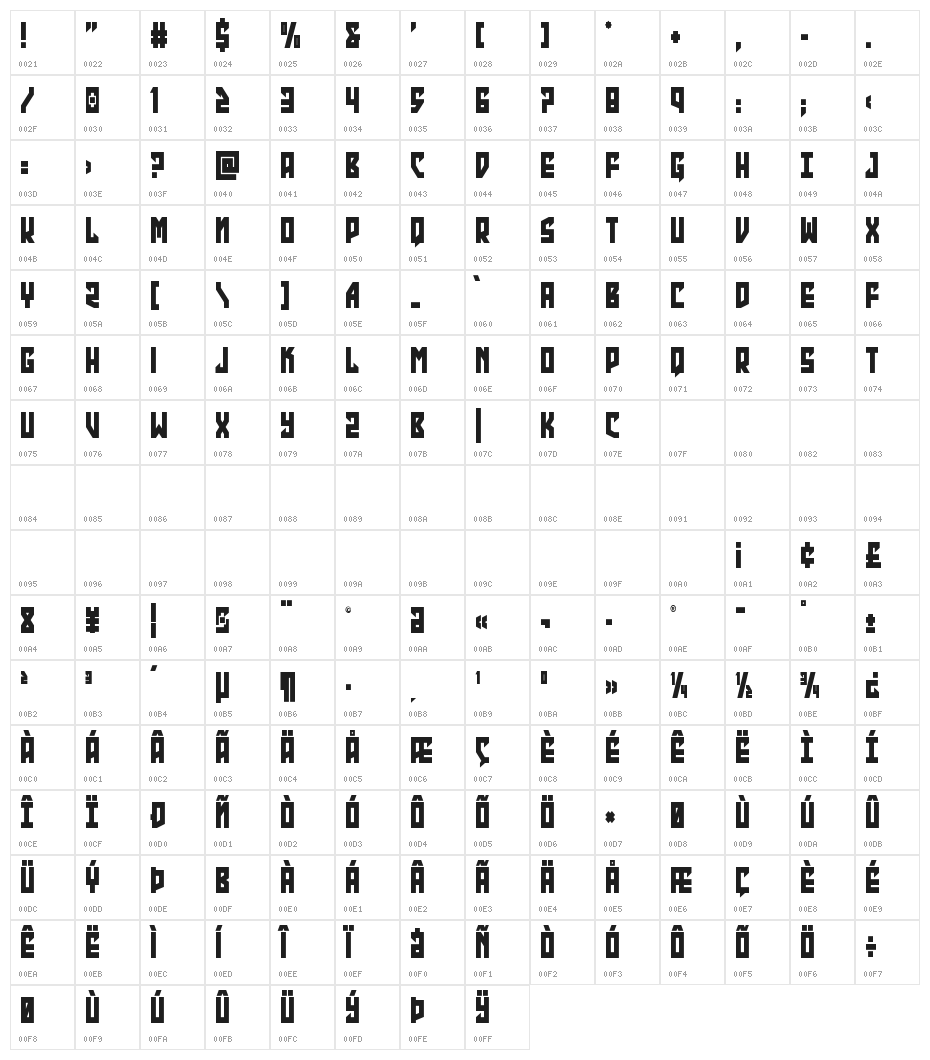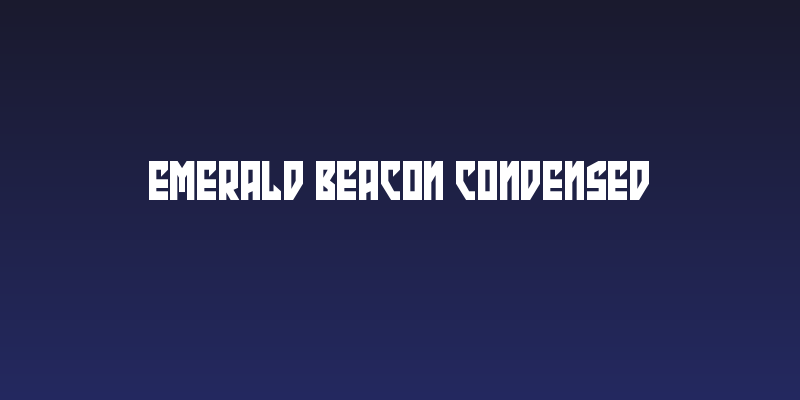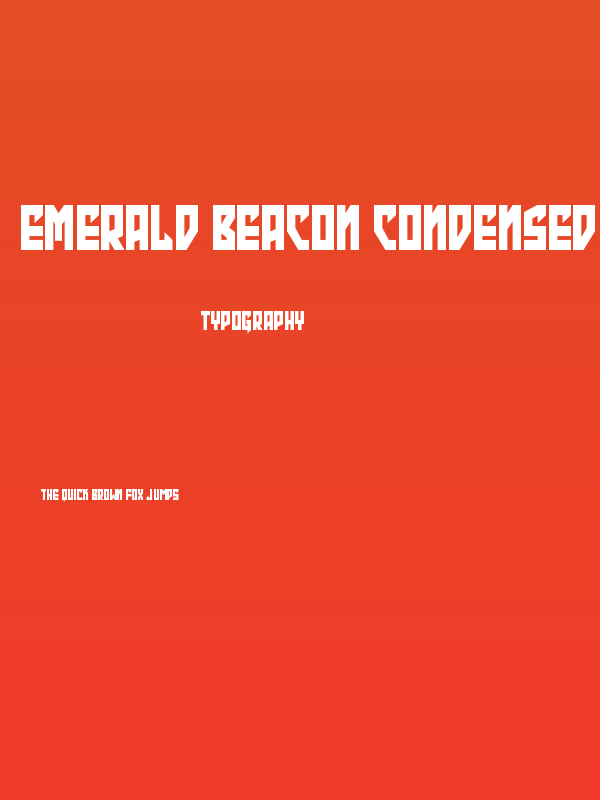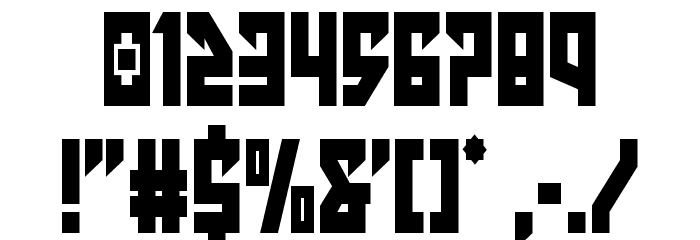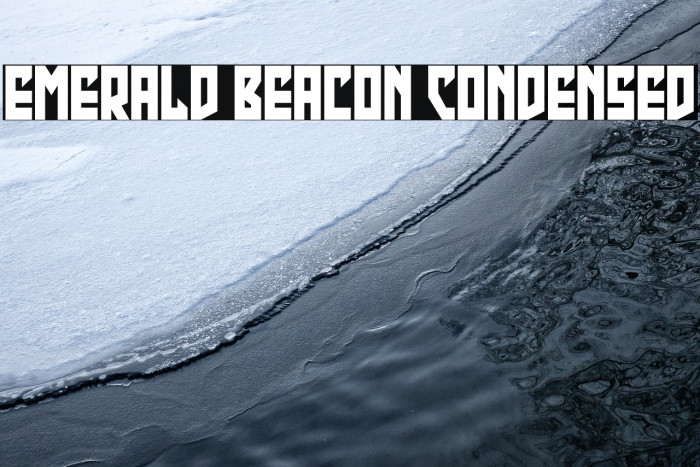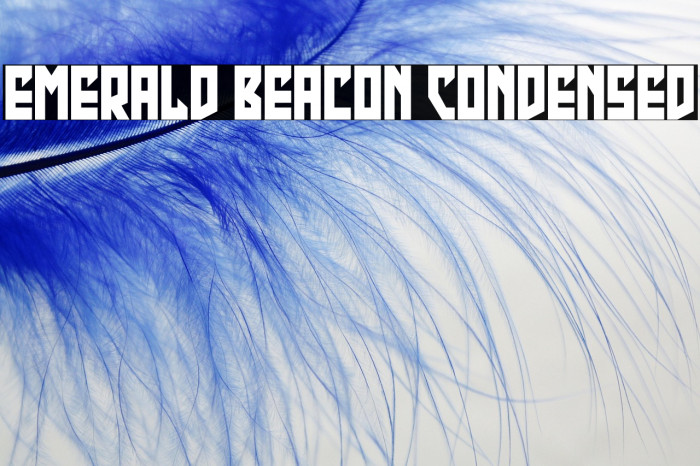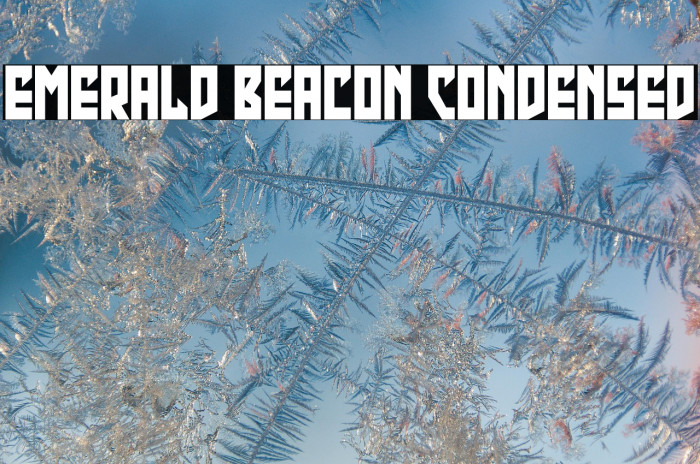
Emerald Beacon Condensed Font
Emerald Beacon Condensed Description
This font features a bold, geometric design with sharp angles and a condensed structure. The characters are blocky and uniform, creating a strong visual impact. The uppercase and lowercase letters maintain a consistent style, with angular cuts and a modern aesthetic. The numerals and special characters follow the same design principles, ensuring a cohesive look across all elements. The font's distinct style makes it suitable for attention-grabbing headlines and display purposes.
| Proposed Projects | Ideal for posters, logos, and branding materials that require a strong visual presence. |